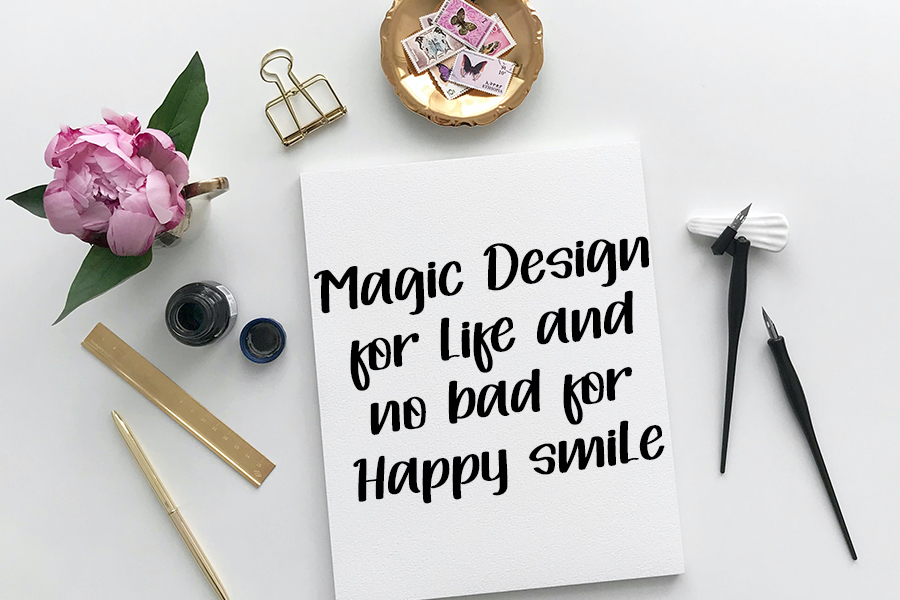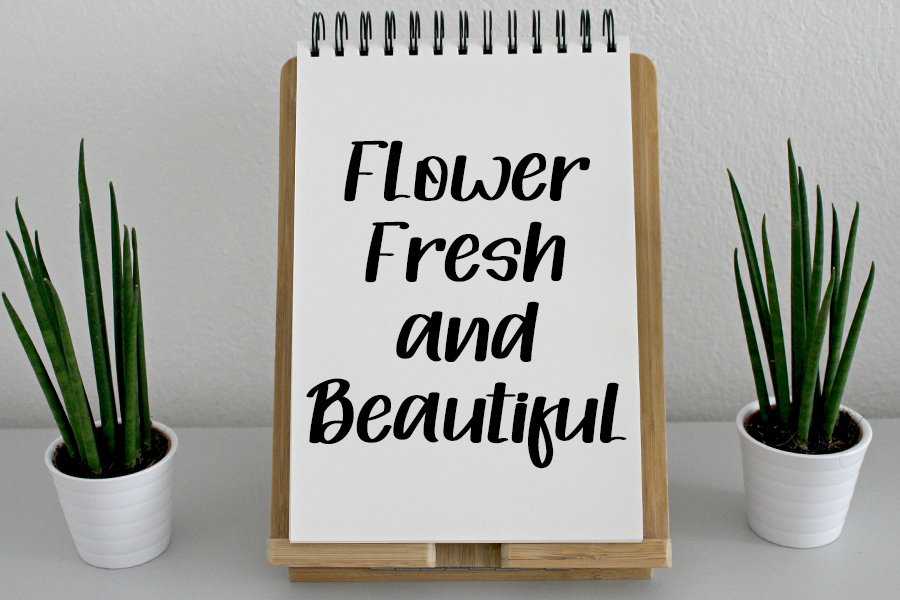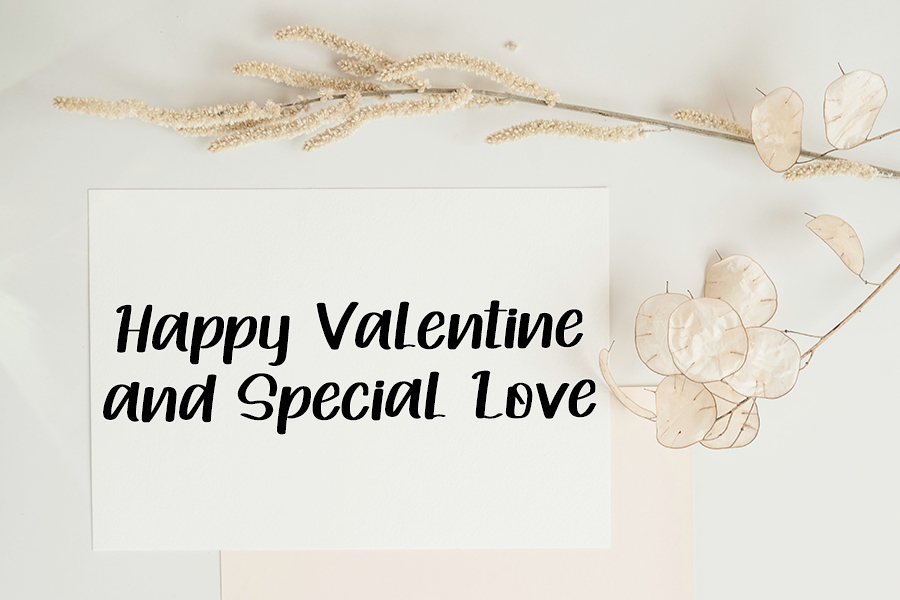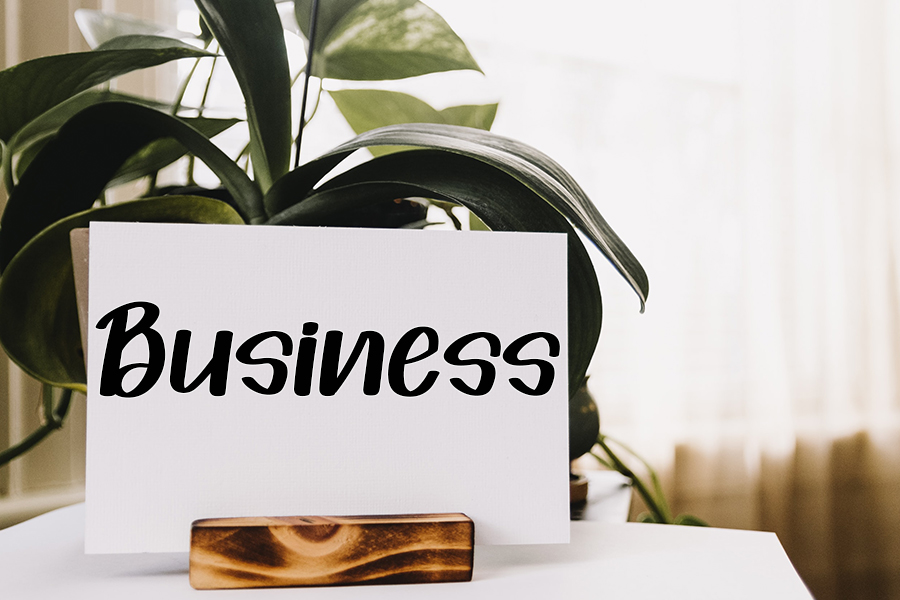
Mountain Adventure Font
Mountain Adventure Display Font
This is a relaxed and beautiful paint brush handwritten font. It can be used for various purposes such as logos, wedding invitations, headings, t-shirts, letterhead, signage, labels, news, posters, badges and so much more.